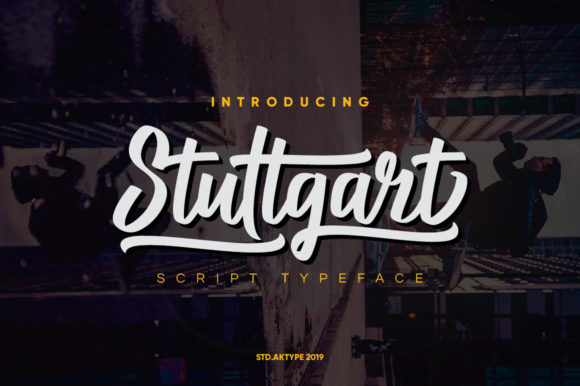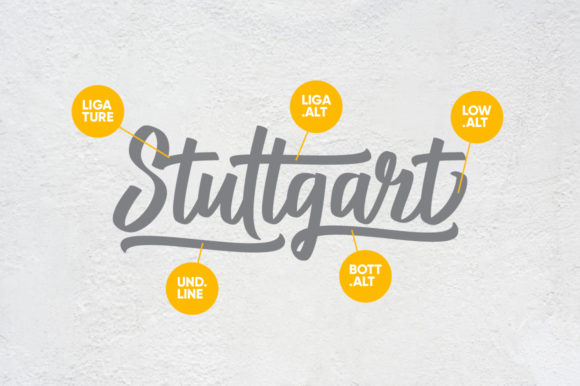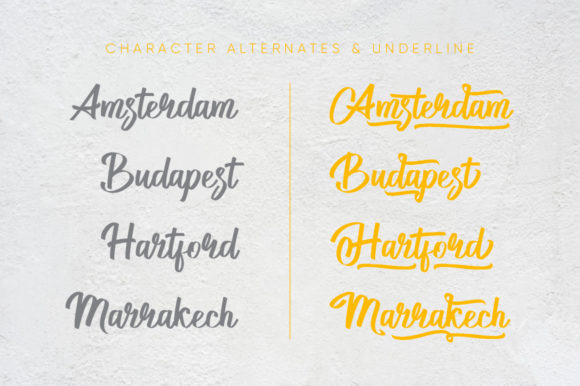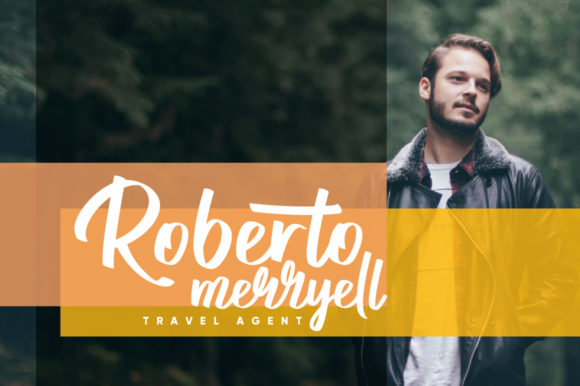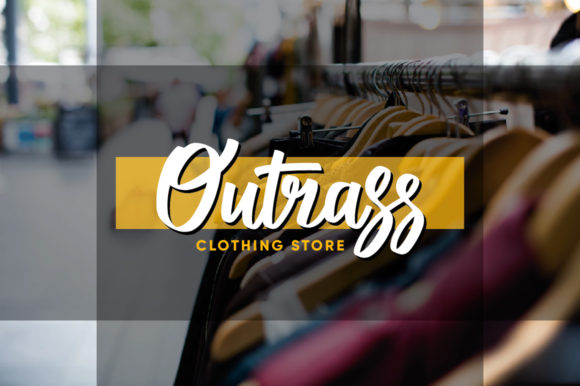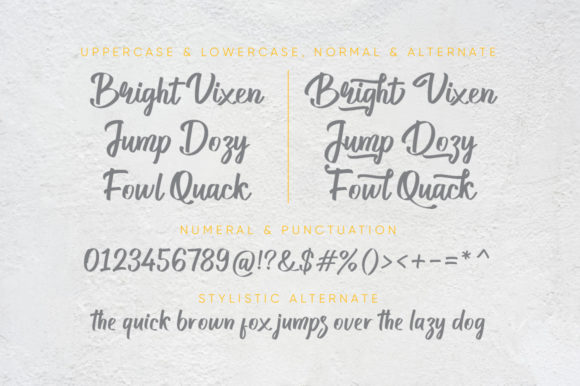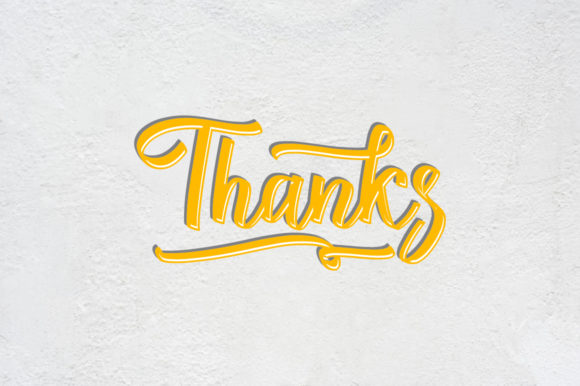
Stuttgart Script Font
About Stuttgart Script Font
The Stuttgart is a young, passionate typeface. It has a striking look with a perfect readability which will make any design stand out.
It’s perfect for designing your own brand and for other branding designs, these letters look perfect on all printing techniques, foil emboss, embroidery, and others.